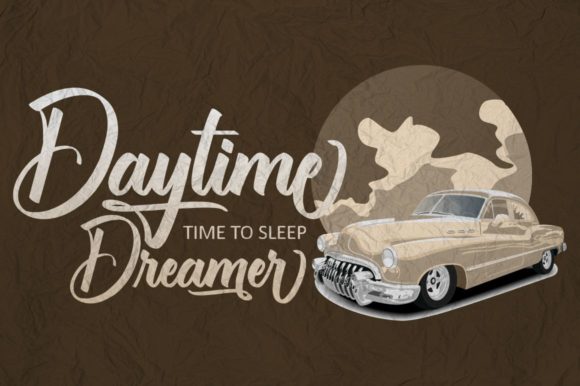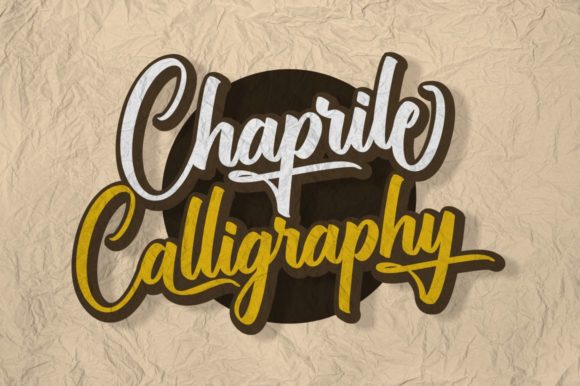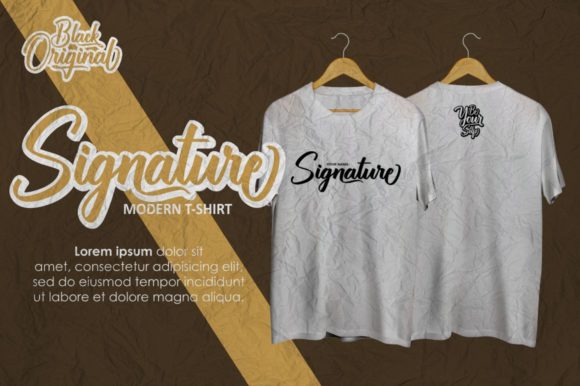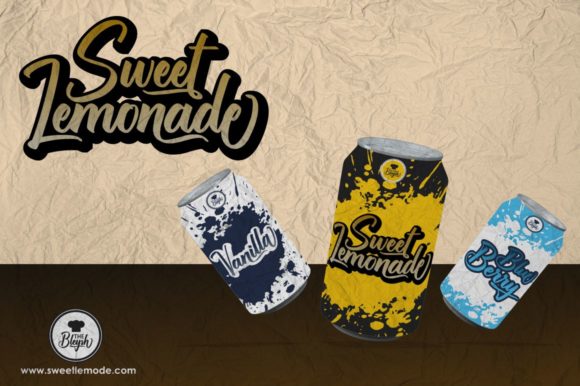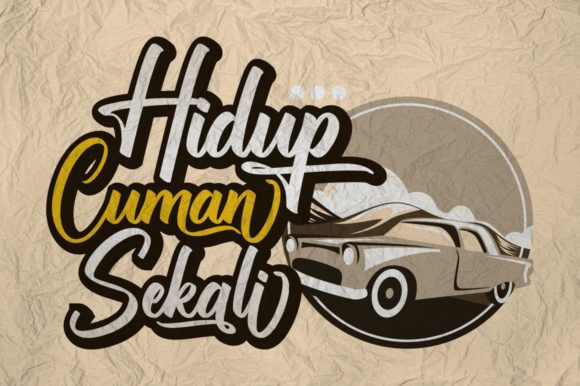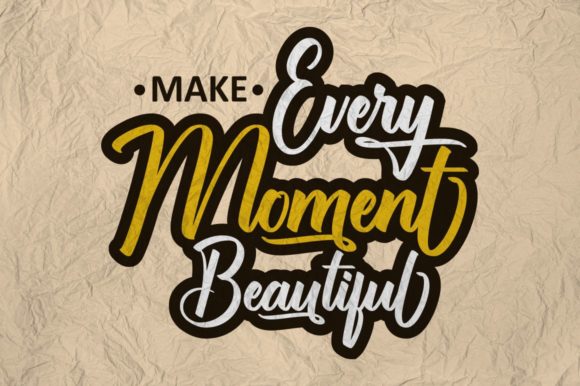
Introducing Chaprile Font: The Ultimate Modern Script Font for Creative Projects
Are you on the hunt for a font that can elevate your designs and add a touch of modern sophistication? Look no further than Chaprile Font! This cool and modern script font is perfect for a wide range of creative projects, from logos and stationery to social media posts and posters. In this article, we’ll dive into the features and benefits of Chaprile Font, and explore how it can take your designs to the next level.
What is Chaprile Font?
Chaprile Font is a modern script font that boasts a unique and stylish aesthetic. Its elegant lines, flowing curves, and precise craftsmanship make it an excellent choice for designers and crafters looking to add a touch of sophistication to their work. Whether you’re creating a logo, designing a poster, or crafting a social media post, Chaprile Font is sure to impress.
Key Features of Chaprile Font
- Modern and Cool Design: Chaprile Font features a modern and cool design that is sure to grab attention. Its unique style is perfect for designers and crafters who want to create something fresh and exciting.
- Script Font: As a script font, Chaprile Font offers a flowing and connected style that is perfect for creating elegant and sophisticated designs.
- Highly Versatile: Chaprile Font is highly versatile and can be used for a wide range of creative projects, from logos and stationery to social media posts and posters.
- Easily Readable: Despite its elegant and cursive style, Chaprile Font is easily readable, making it perfect for body text and headlines.
Benefits of Using Chaprile Font
So, why should you choose Chaprile Font for your next design project? Here are just a few benefits of using this amazing modern script font:
- Adds a Touch of Sophistication: Chaprile Font adds a touch of sophistication and elegance to any design, making it perfect for high-end brands and luxury products.
- Grabs Attention: The unique and modern design of Chaprile Font is sure to grab attention and make your designs stand out from the crowd.
- Boosts Creativity: With Chaprile Font, you can create a wide range of creative designs, from elegant and sophisticated to bold and playful.
- Perfect for Branding: Chaprile Font is perfect for branding and can help to create a consistent and cohesive visual identity for your business.
How to Use Chaprile Font
Using Chaprile Font is easy! Here are a few tips to get you started:
- Logos and Branding: Use Chaprile Font to create a unique and memorable logo that reflects your brand’s personality and style.
- Stationery and Print Materials: Add a touch of elegance to your stationery and print materials, such as business cards, letterheads, and brochures.
- Social Media Posts: Use Chaprile Font to create eye-catching social media posts that grab attention and drive engagement.
- Posters and Flyers: Create stunning posters and flyers that showcase your products, services, or events in style.
In conclusion, Chaprile Font is an amazing modern script font that is perfect for designers and crafters looking to add a touch of sophistication and elegance to their designs. With its unique and stylish aesthetic, highly versatile design, and easily readable style, Chaprile Font is sure to become a go-to font for creative projects. So why wait? Download Chaprile Font today and take your designs to the next level!